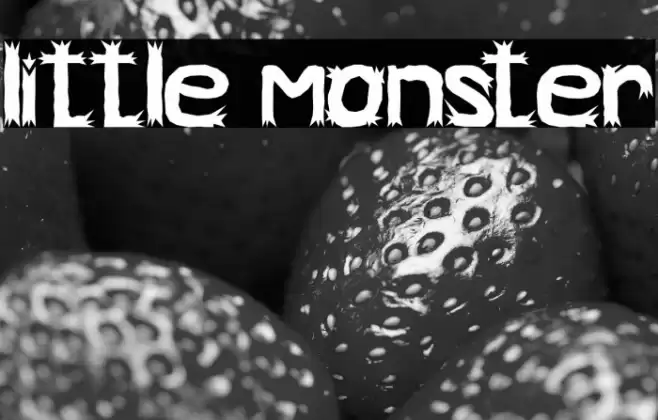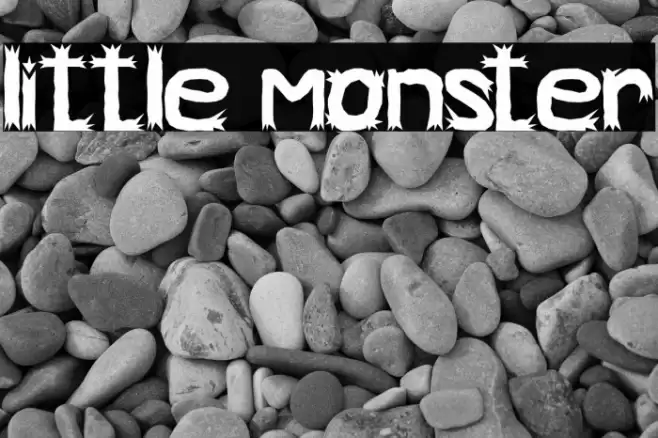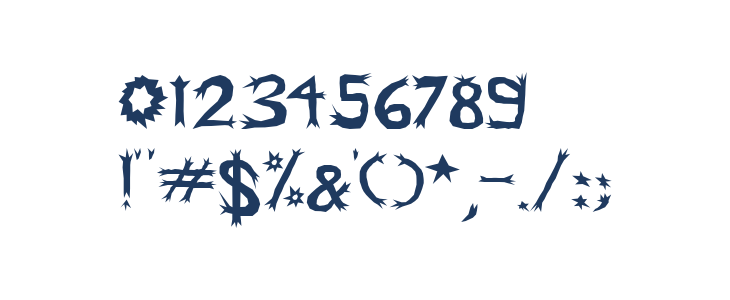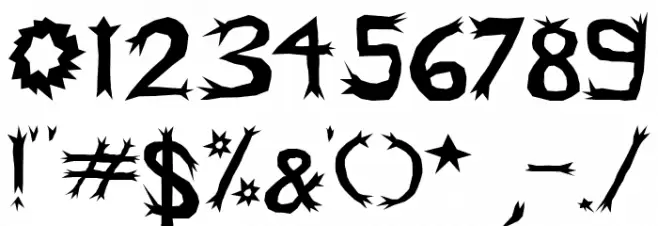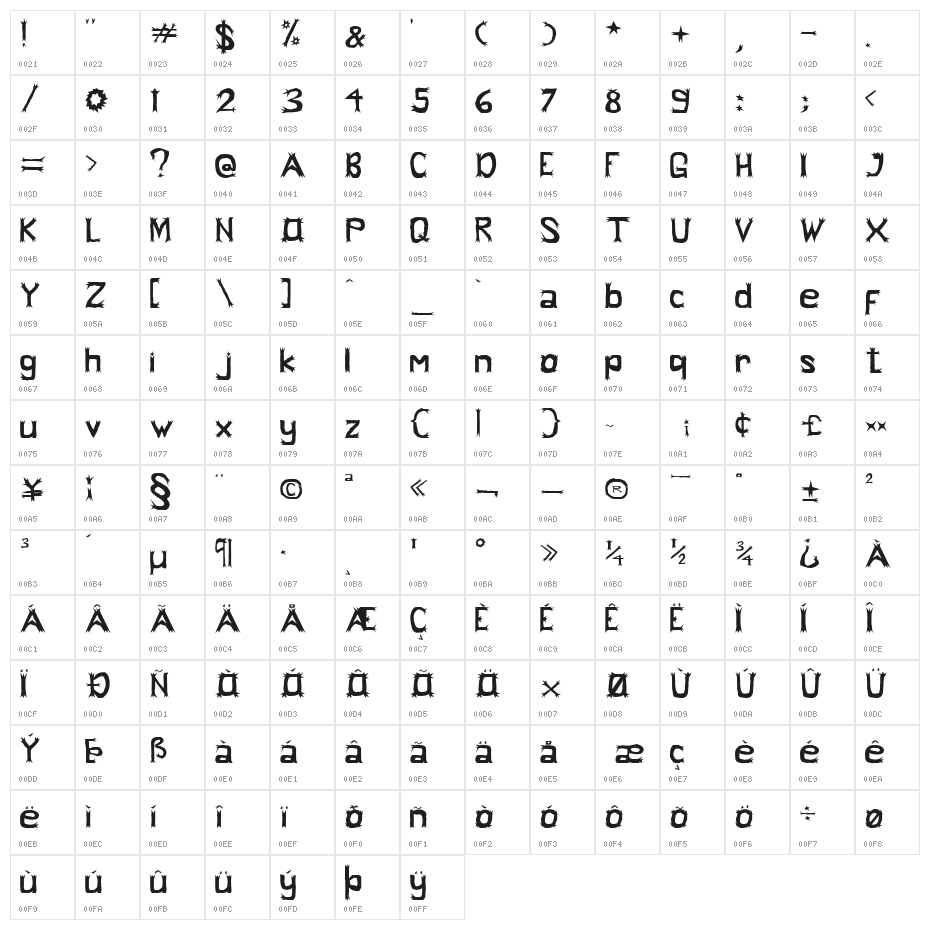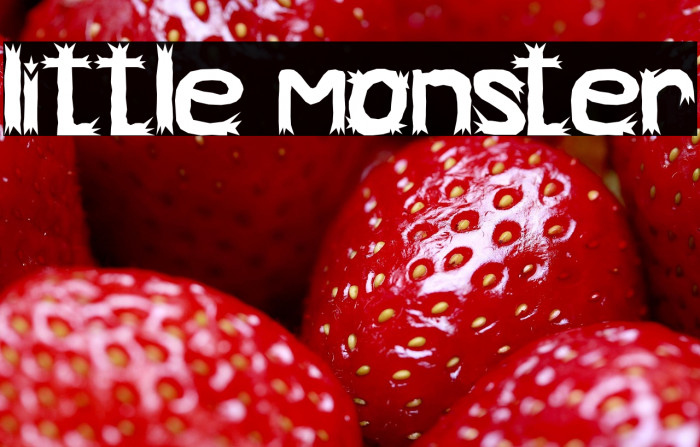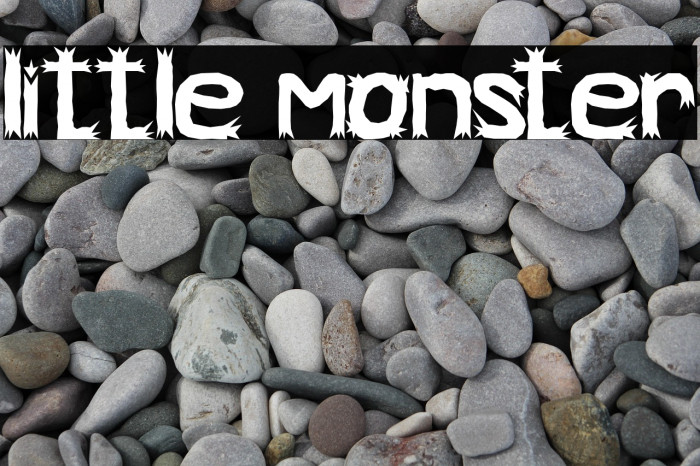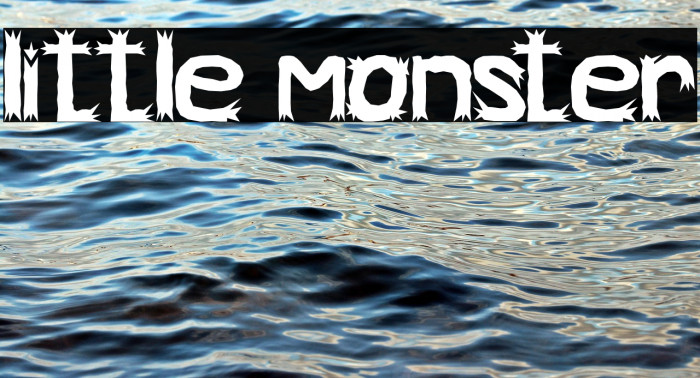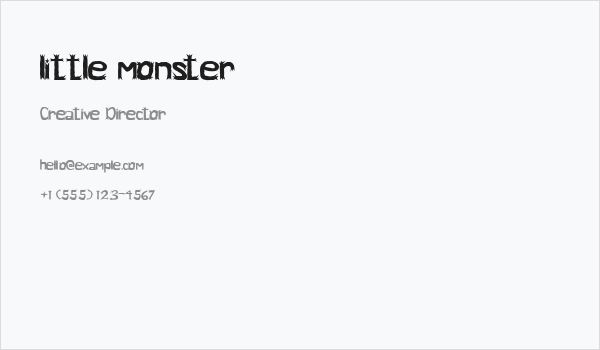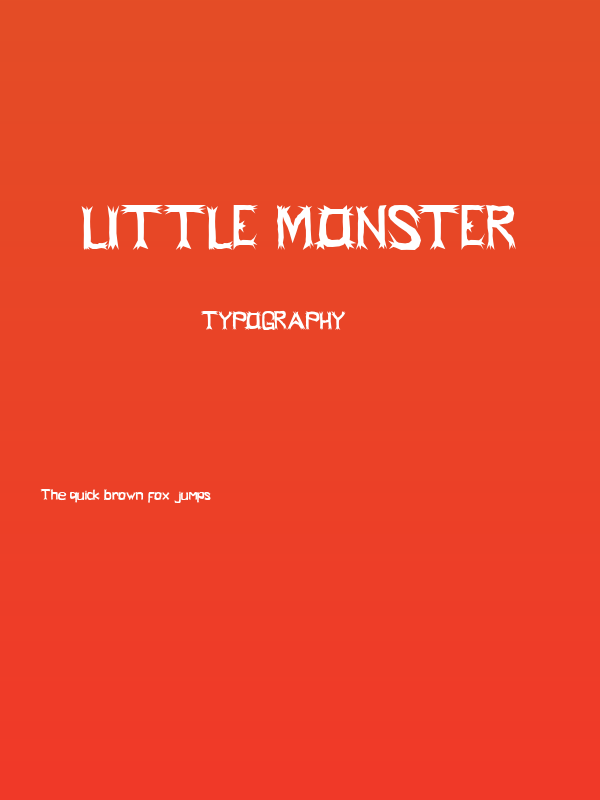
little monster Font
little monster Description
This font features a unique, jagged design that evokes a sense of edginess and playfulness. The characters are adorned with sharp, thorn-like protrusions, giving them a dynamic and slightly chaotic appearance. The uppercase and lowercase letters maintain a consistent style, with the uppercase being more pronounced and the lowercase slightly more subdued. Numbers and special characters follow the same aesthetic, ensuring a cohesive look across all elements. The font's boldness and distinctive style make it stand out, perfect for projects that require a touch of whimsy or a spooky theme.
A jagged, edgy font with thorn-like accents, perfect for playful or spooky designs from Regular fonts.
- Proposed Projects: Ideal for Halloween-themed graphics, edgy posters, children's book covers, or any project needing a playful yet eerie touch.